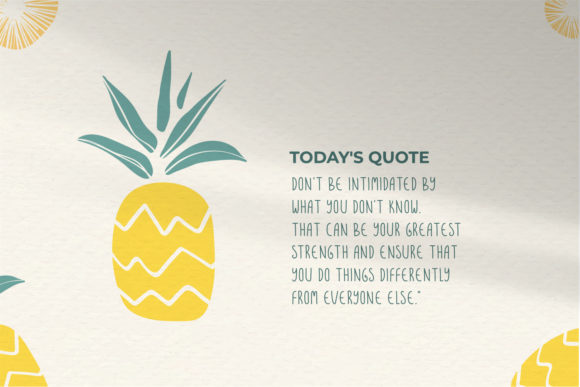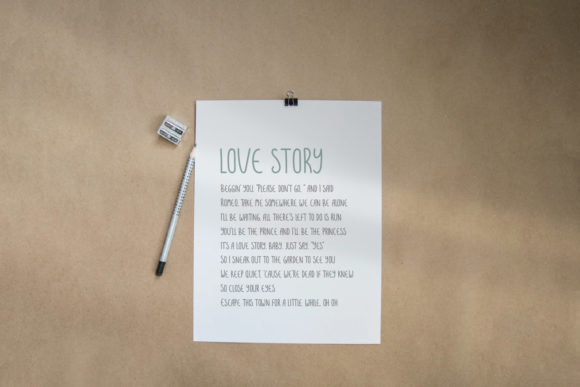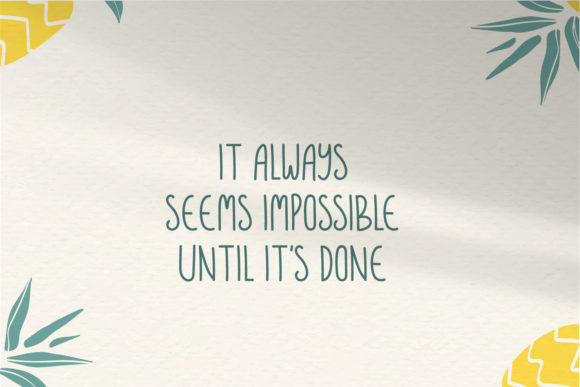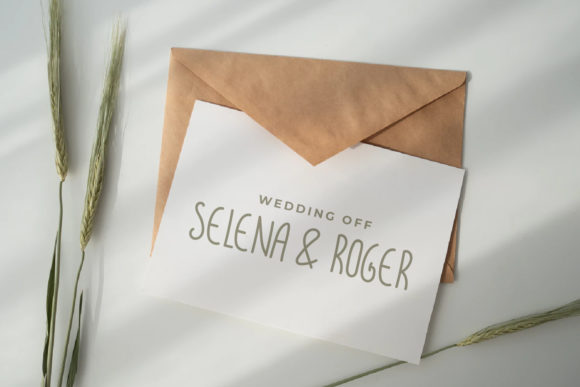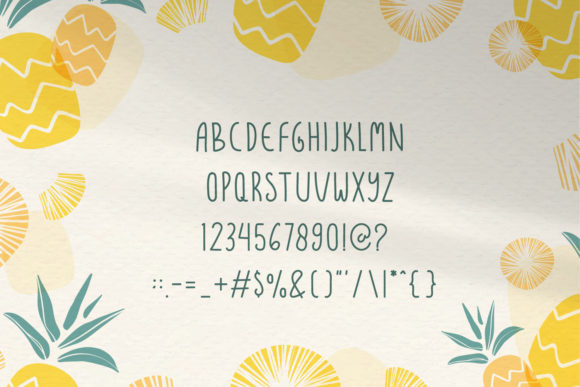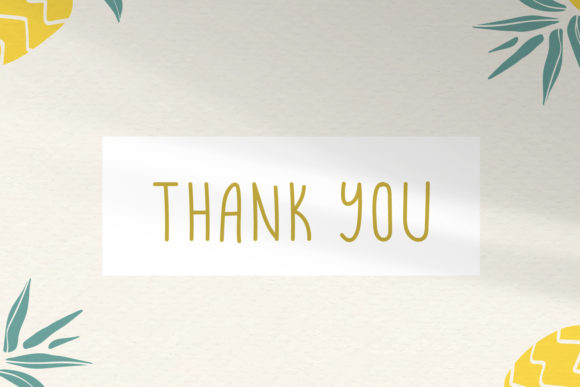
About Holliday Font
Holliday is a cute and tall lettered handwritten font. It can be used for various purposes such as logos, headings, t-shirts, letterhead, signage, labels, news, posters, badges and so much more.